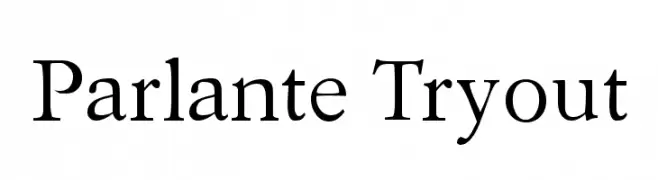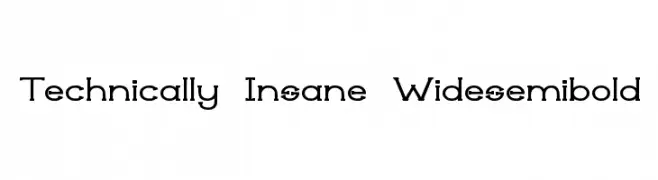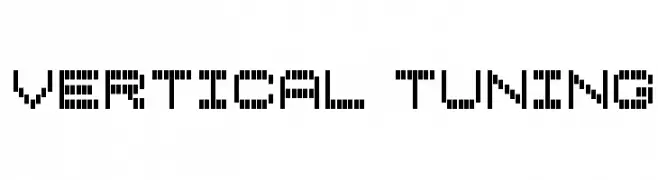
A pixelated, grid-like font inspired by digital displays and early computer graphics.
A playful and whimsical font with decorative swirls and curls.
A bold, geometric outline font with a modern, industrial aesthetic.
A bold, wide font with a modern, geometric style.
A bold, modern serif font with high contrast and sharp serifs.
A bold, playful font with rounded, bubbly characters ideal for fun designs.